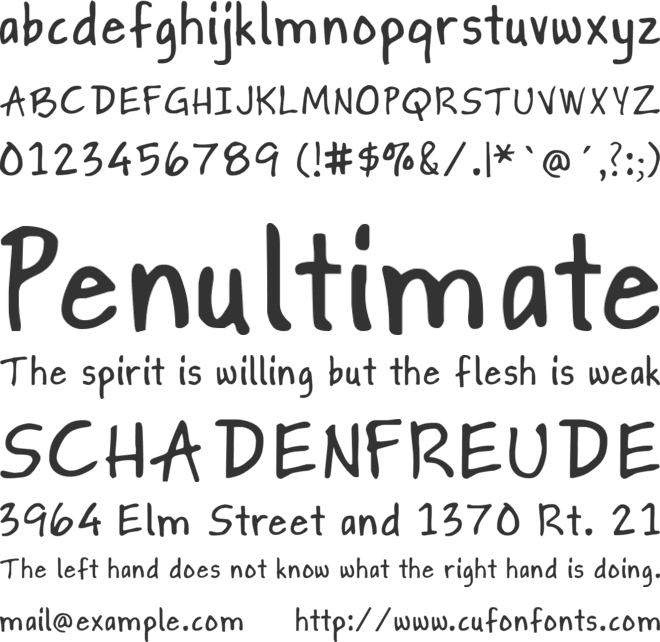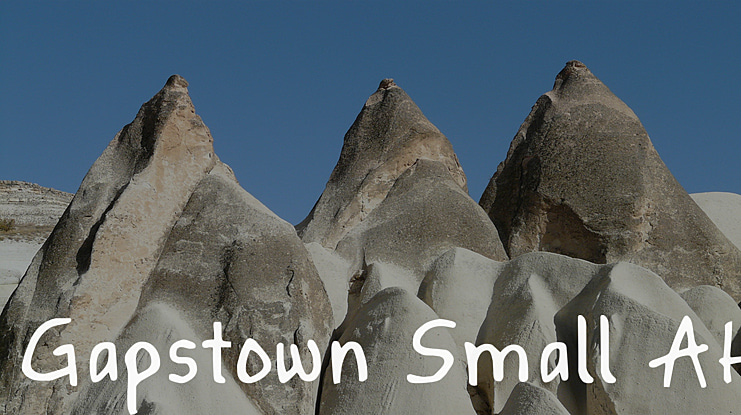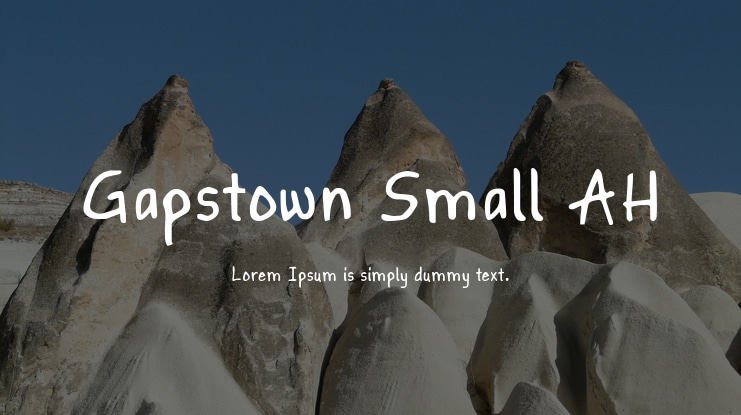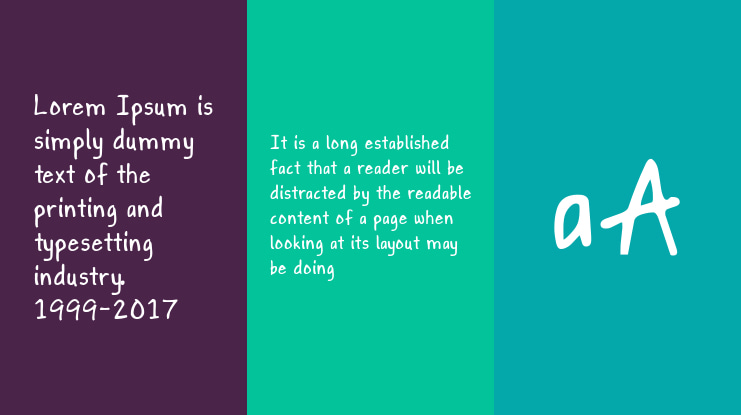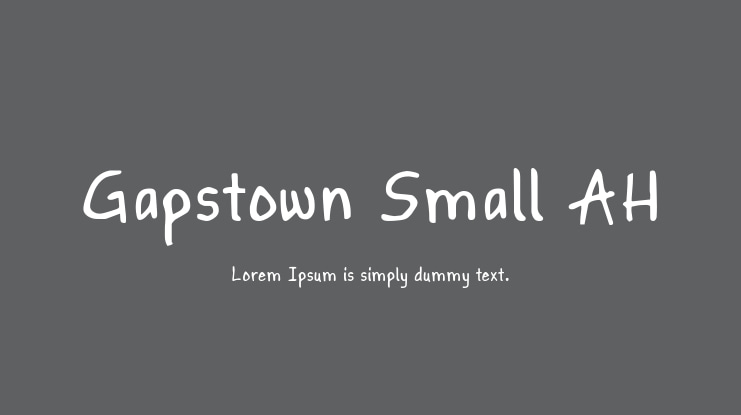
Gapstown Small AH Font Family
Andreas Höfeld
A handwriting font with informal but not too irregular characters, for those who are kind of tired of the standardhand printing fonts supplied by Creative Suites and commercial operating systems, the ones you see everywhere. Theseare fairly unknown faces and a good alternative.Gapstown comes in two weights, standard and bold, and in two variants: Gapstown and Gapstown Small. The latter haswider letterspacing for smaller print sizes. Test for yourself which ones to use at what size.